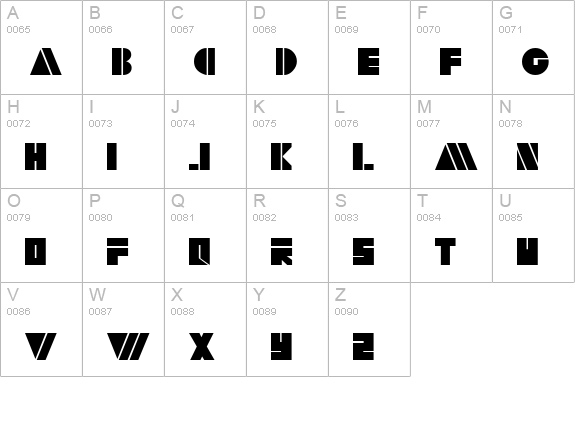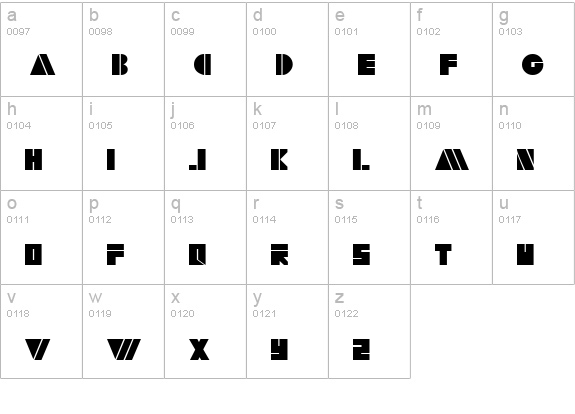
RialtoSCapsSSK Bold Font Details
RialtoSCapsSSK Bold is a strong, high-contrast variant in the RialtoSCapsSSK typeface family \xE2\x80\x94 well suited to headlines, attention-grabbing titles, and strong calls-to-action.
Introducing RialtoSCapsSSK Bold, a captivating and powerful typeface that is sure to make a statement in any design project. With its bold and assertive letterforms, this font exudes confidence and strength, making it the perfect choice for headings, titles, and logos. Designed with versatility in mind, RialtoSCapsSSK Bold can effortlessly adapt to a variety of design styles, whether it's modern and sleek or classic and sophisticated. Its clean lines and distinct shapes ensure readability even at smaller sizes, making it a reliable choice for both print and digital applications. What sets RialtoSCapsSSK Bold apart is not only its striking appearance but also its accessibility. This font is available for free download at FontsMarket.com, allowing designers, creatives, and enthusiasts alike to easily access and utilize its impressive features. By making RialtoSCapsSSK Bold freely available, it empowers designers to unleash their creativity without any limitations. Whether you're designing a poster, a website, or a branding project, RialtoSCapsSSK Bold is the perfect companion to elevate your designs to new heights. Its confident and commanding presence will surely captivate your audience and leave a lasting impression. Don't miss out on the opportunity to add RialtoSCapsSSK Bold to your font collection. Download it for free at FontsMarket.com and unlock a world of possibilities for your next design endeavor.